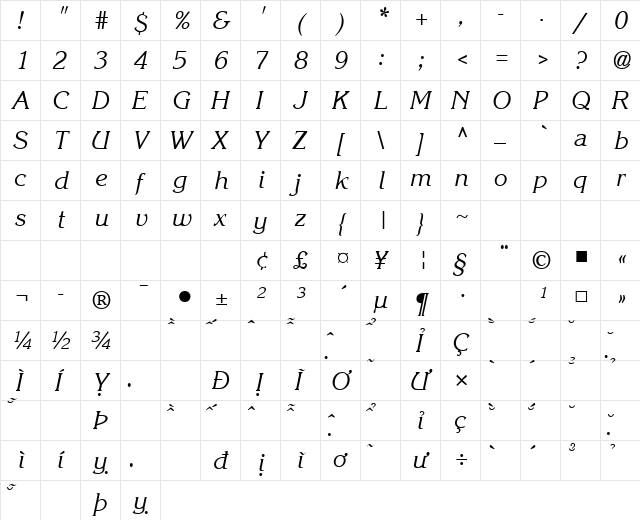
VNI-Korin Italic Font Preview
VNI-Korin Italic
Design Context for VNI-Korin Typeface
VNI-Korin takes a measured approach to typography — its balanced proportions and neutral character make it a reliable workhorse for both digital and print work. The slanted form adds forward momentum and visual energy.